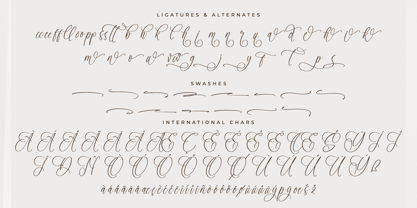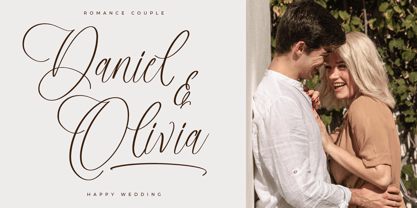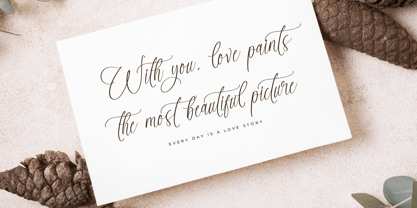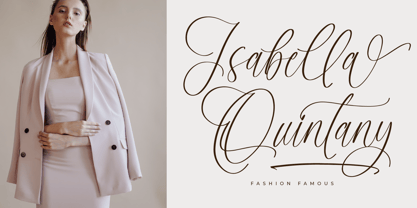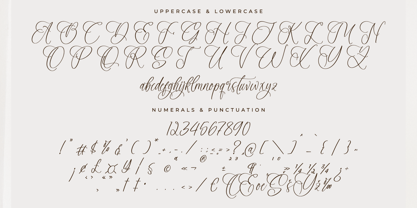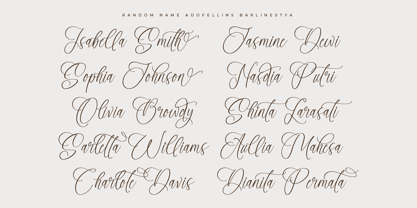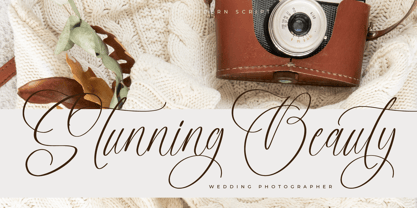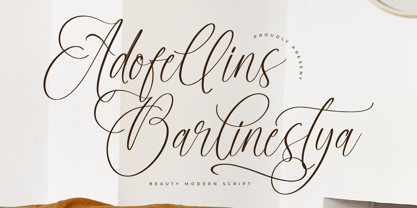
Adofellins Barlinestya
by Letterena Studios
The Adofellins Barlinestya Font Family was designed by Heru Utama Putra and published by Letterena Studios. Adofellins Barlinestya contains 2 styles and family package options. More about this family
Adofellins Barlinestya – Beauty Modern Script , from Letterena, is a Luxury Script font, suitable for any projects such as: logos, branding projects, homeware designs, product packaging, mugs, quotes, posters, shopping bags, t-shirts, book covers, name card, invitation cards, greeting cards, label, photography, watermark, special events, and all your other luxury and beautiful projects that need a Luxury Script taste.